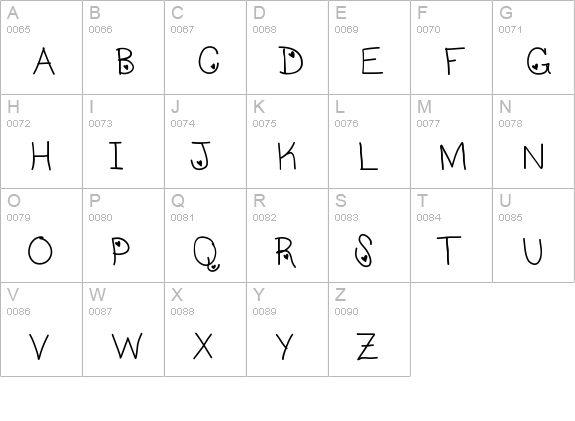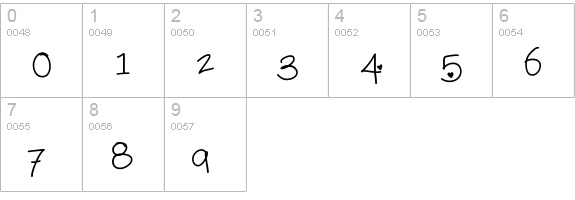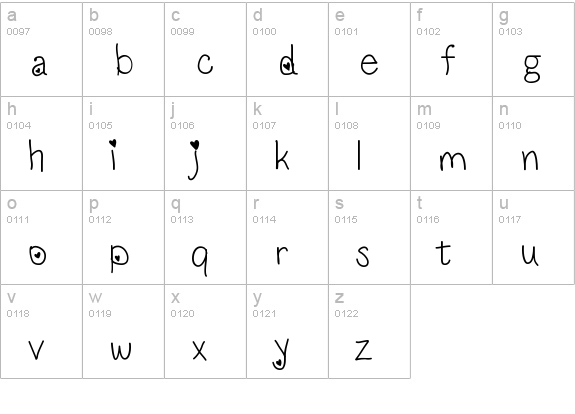
LoveNess font is a beautifully crafted typeface that exudes elegance, sophistication, and a touch of whimsy. Its delicate curves and graceful lines make it the perfect choice for any project that requires a touch of romance and femininity. Whether you're designing wedding invitations, creating a logo for a luxury brand, or simply adding a touch of charm to a personal project, LoveNess font is sure to captivate and delight. What makes LoveNess font even more appealing is the fact that it is freely available to download at FontsMarket.com. Yes, you read that right - this stunning font can be yours without spending a dime! Now you can elevate your designs and bring your creative visions to life without having to break the bank. With LoveNess font, you have the freedom to explore endless possibilities. Its versatility allows it to shine in a variety of contexts, from print to digital media. The clean, legible letterforms ensure that your message is conveyed with clarity and style, while the subtle flourishes and swashes add a hint of playfulness and intrigue. Whether you're a seasoned designer or just starting out on your creative journey, LoveNess font is a must-have addition to your font library. It is easy to use, easy to read, and guaranteed to make a lasting impression. So why wait? Go ahead and download LoveNess font for free at FontsMarket.com and let your creativity soar.